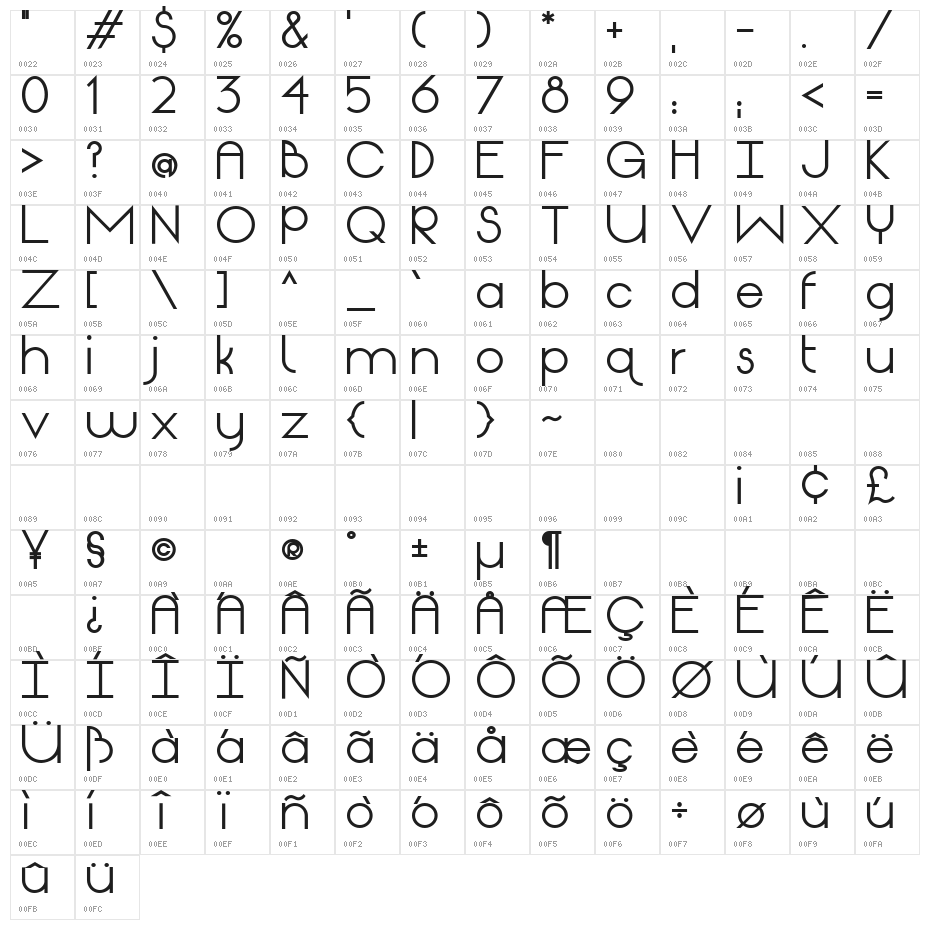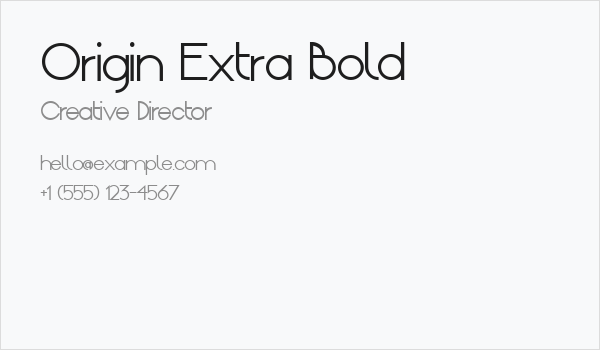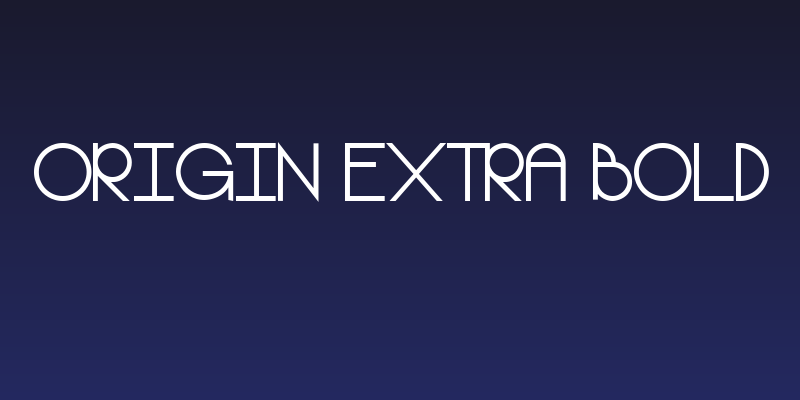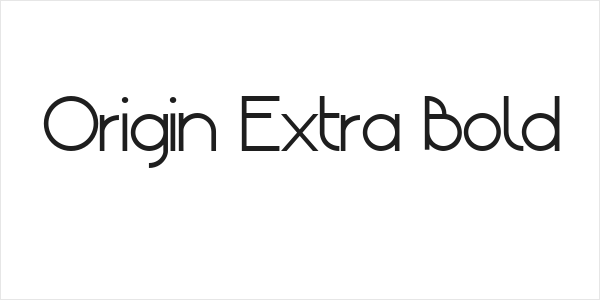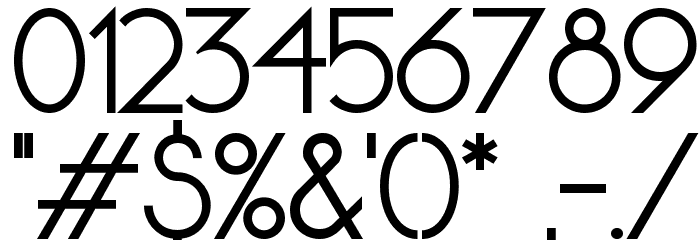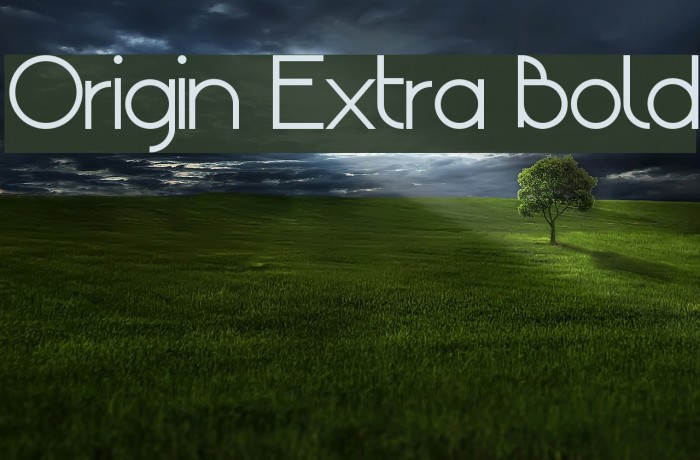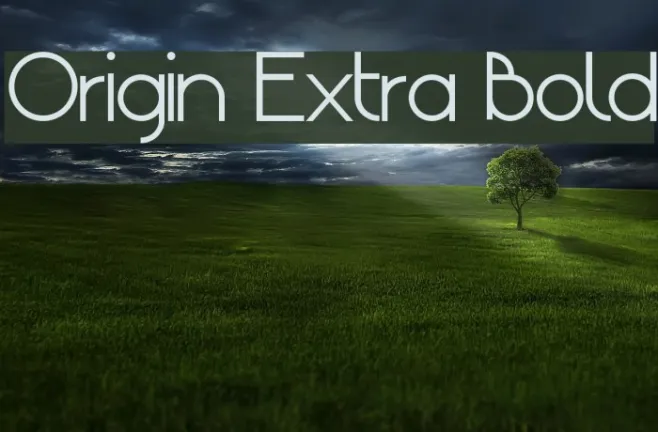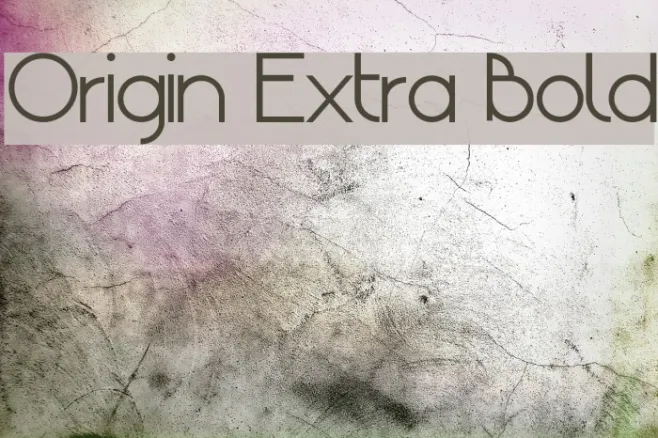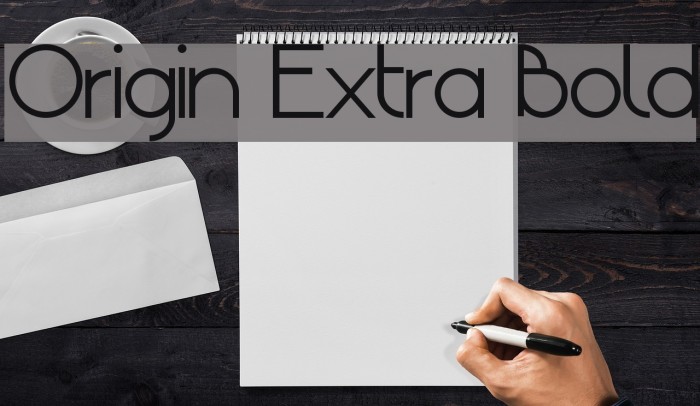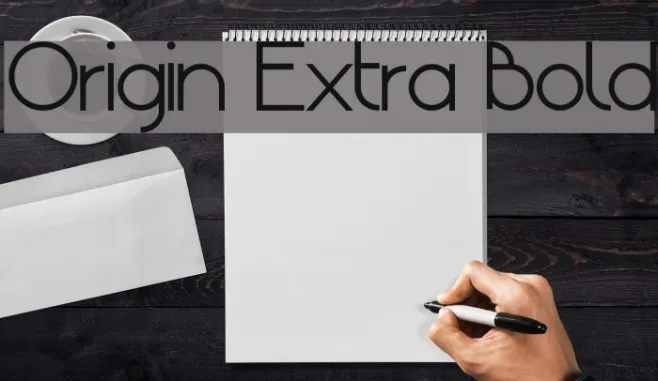
Origin Extra Bold Font
Origin Extra Bold Description
This font features a geometric and modern design with clean, straight lines and circular elements. The uppercase letters are bold and striking, with a consistent stroke width that gives them a strong presence. The lowercase letters maintain a similar style, offering a harmonious balance between the two cases. Numbers are clear and legible, with a uniform thickness that matches the overall aesthetic. Special characters are designed with the same attention to detail, ensuring they integrate seamlessly with the rest of the font. This font's contemporary style makes it suitable for a variety of design applications.
| Proposed Projects | Ideal for branding, advertising, and digital media projects that require a modern and bold typeface. |